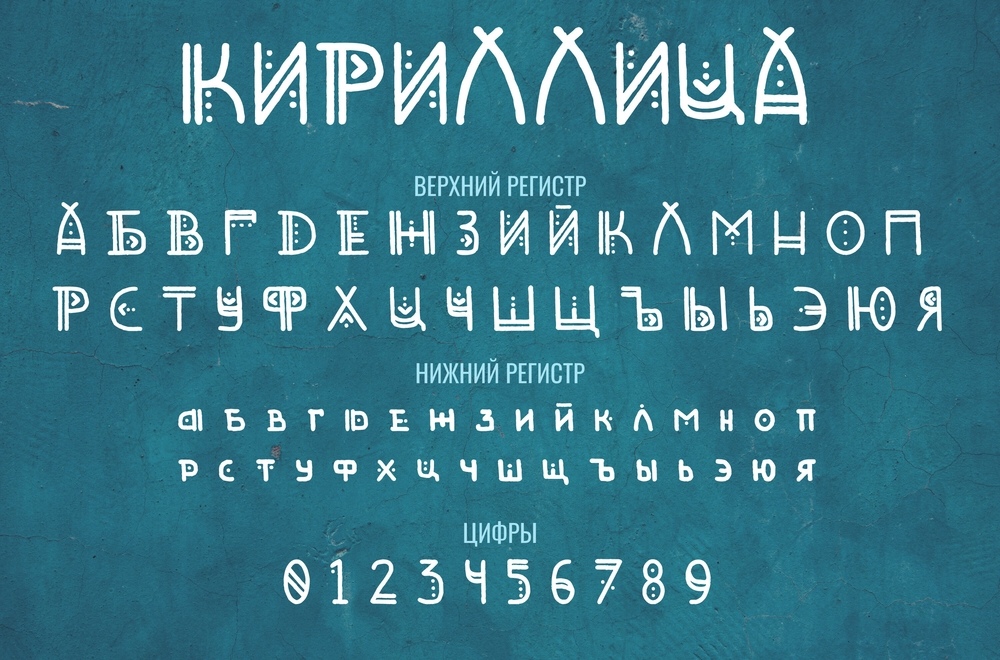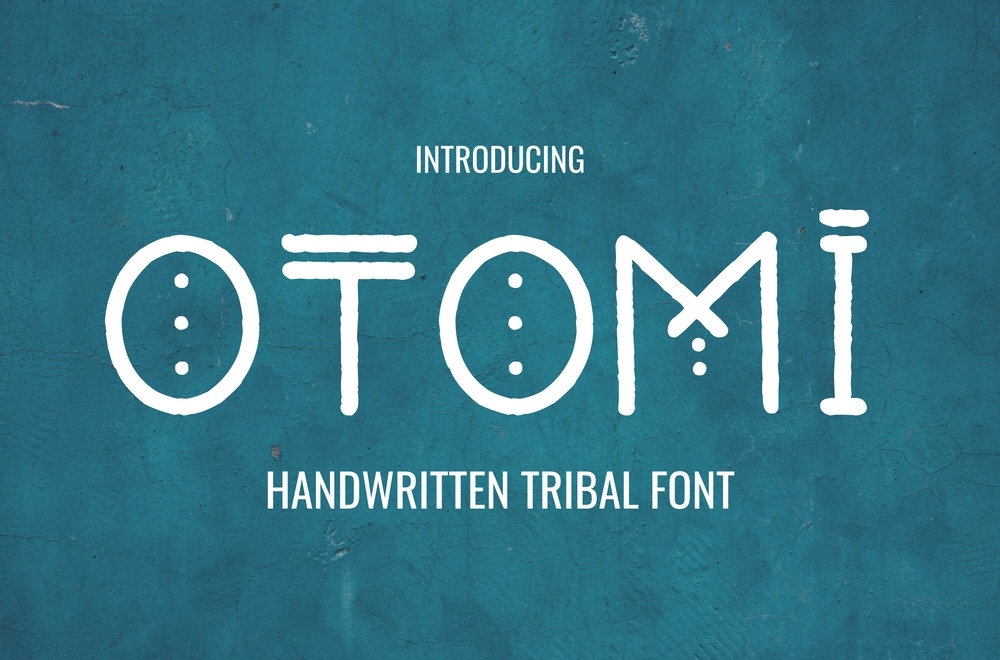
Otomi Font
Otomi Font is perfect for indigenous cultural branding, Mexican heritage projects, traditional textile marketing, artisanal craft communications, cultural preservation materials, ethnic art exhibitions, handwoven product packaging, and authentic cultural advertising campaigns. This traditional typeface works beautifully in both digital applications and print media where indigenous artistry and Mexican cultural heritage are essential design elements.
What makes Otomi Font so exciting is its respectful interpretation of Otomi indigenous textile traditions through pattern-inspired letterforms that honor the same intricate artistry and cultural symbolism that defines the beautiful embroidered textiles of Central Mexico's indigenous communities. The font features decorative characters with traditional proportions, textile-inspired curves, and cultural details that communicate respect for indigenous craftsmanship, artistic heritage, and the profound cultural significance of traditional Mexican textile arts. Its respectful personality and indigenous heritage make it ideal for cultural organizations seeking to honor indigenous traditions while appealing to audiences who appreciate authentic cultural artistry and traditional craftsmanship.
The Otomi Font family includes multiple weight variations with different decorative intensities, along with traditional alternates and indigenous ornamental elements. Each style maintains the typeface's cultural character while offering comprehensive character sets including traditional numerals, culturally-inspired punctuation marks, and special symbols designed to enhance indigenous communications and cultural branding efforts across various respectful contexts.
This remarkable typeface represents the perfect fusion of indigenous tradition and contemporary design functionality for cultural and artisanal industries. Whether you're developing cultural center identities, creating traditional craft materials, or designing indigenous art promotions, Otomi Font Free Download provides the cultural authenticity and versatility needed to honor indigenous communities. The font's traditional appeal makes it particularly effective for cultural museums, artisanal cooperatives, indigenous craft organizations, and businesses celebrating and supporting the preservation of traditional Mexican indigenous arts and cultural heritage.
The meticulously crafted traditional details and optimized cultural performance in Otomi Font ensure both respectful authenticity and clear communication across all cultural applications. Its respectful presence makes it perfect for cultural branding, traditional marketing materials, and heritage communications where its full indigenous character can create meaningful connections with audiences who appreciate the beauty, cultural significance, and artistic mastery of traditional Otomi textile arts and indigenous Mexican cultural heritage.